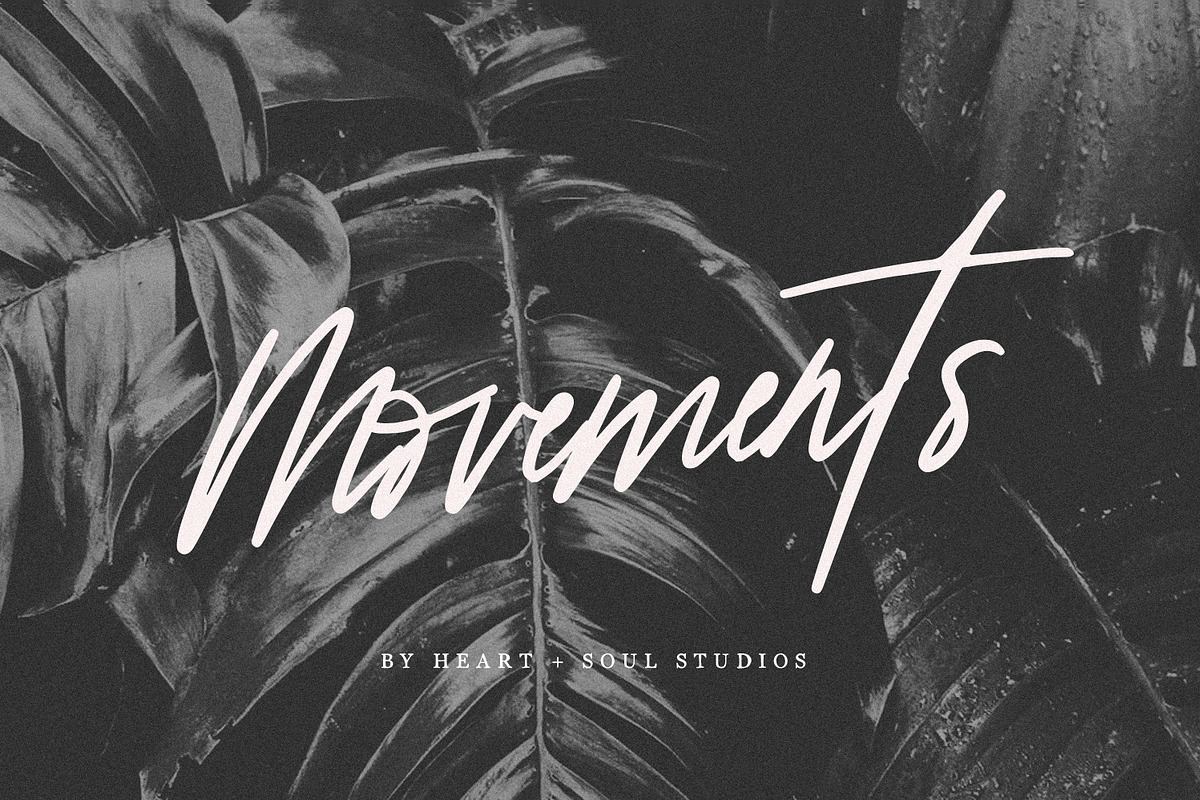
Movements – Handwritten Font Free Download is a stylish and dynamic handwritten typeface that captures the fluidity and rhythm of natural handwriting. With its smooth lines and organic flow, this font is perfect for personal projects, branding, social media posts, and creative designs that need a personal and authentic touch.
The font’s relaxed and energetic design makes it versatile for both casual and elegant designs, while its fluid movement brings a sense of spontaneity and personality. Whether you're working on invitations, inspirational quotes, or artistic designs, Movements offers a refined yet expressive handwritten style.